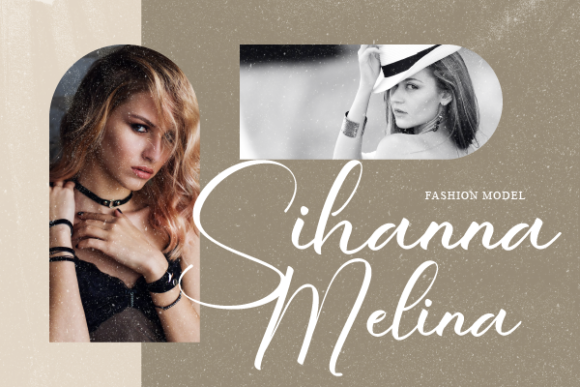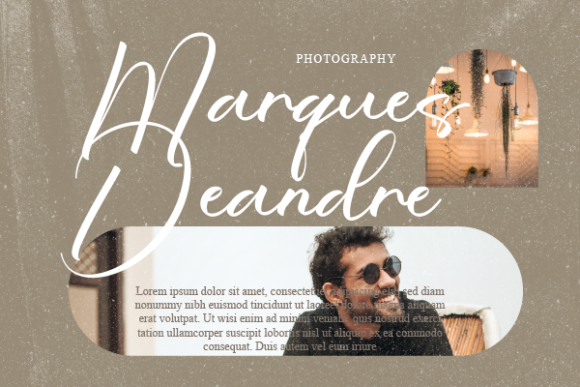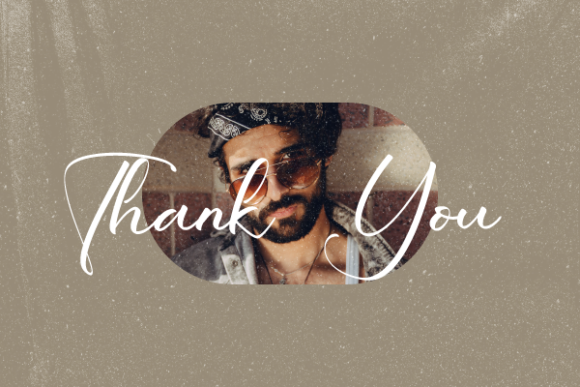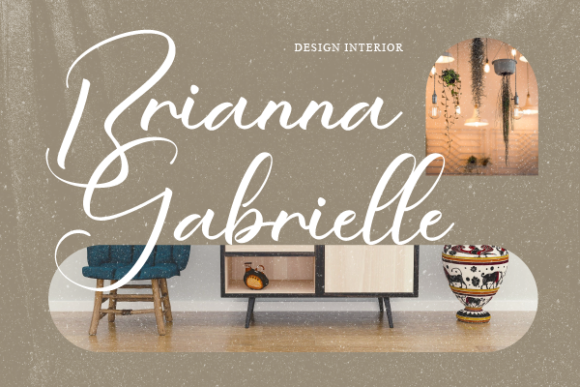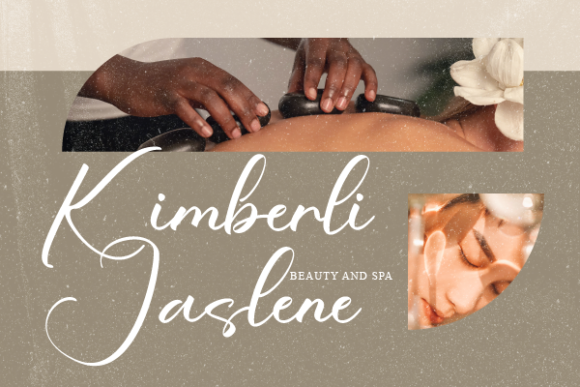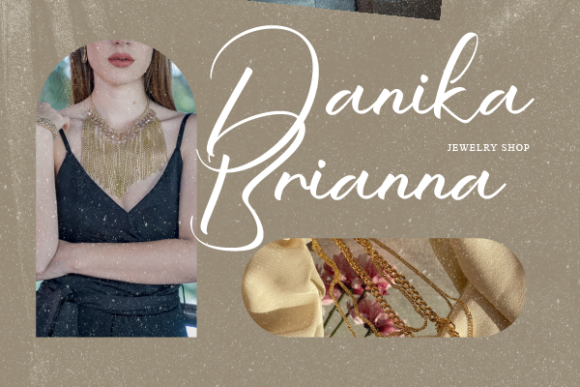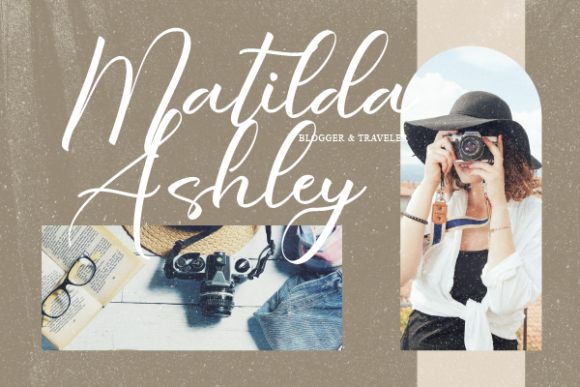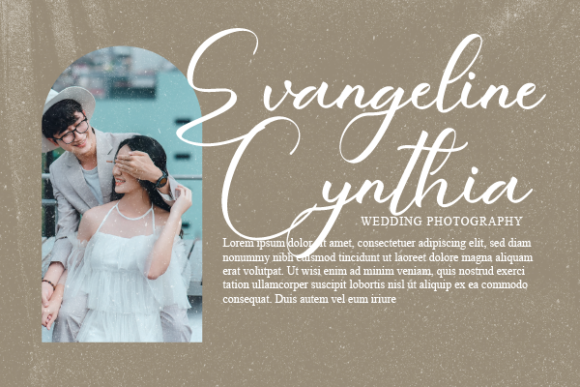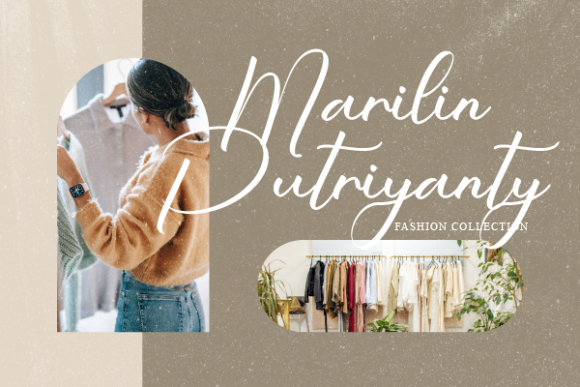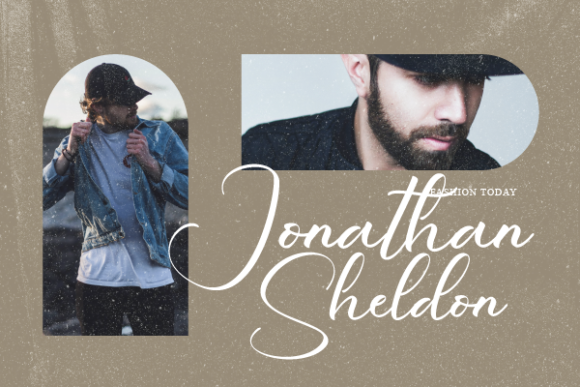
Holly Bomford Font
About Holly Bomford Font
“Holly Bomford” emerges as a font that embodies delicacy and fashion-forward elegance. With its graceful script style, it becomes the ideal choice for a diverse range of branding projects. From logos to t-shirt printing, and from creative products to a myriad of contexts, this font exudes an extraordinary charm that elevates every design it graces.
Visualize “Holly Bomford” as a brush that dances across the canvas with finesse and flair, leaving behind a trail of elegant strokes that form a visual tapestry of sophistication. Its delicate curves and stylish lines elevate your projects, transforming them into visual treasures that radiate with charm and creativity. As you integrate this font into your creations, you’ll embark on a journey where your concepts evolve into captivating visual narratives.
Beyond its visual allure, “Holly Bomford” captures an essence of authenticity and creative expression. Its script nature adds a personal touch, turning your designs into more than just visuals – they become expressions of artistry and refined style.
“Holly Bomford” stands as a versatile companion in your branding journey. Its adaptability ensures seamless harmony with various styles, themes, and intentions. Whether you’re seeking to enhance the impact of your logo, bring a fashionable touch to t-shirt prints, or infuse creative products with a sense of elegance, this font amplifies the resonance of your message.
In a world where design communicates through visual aesthetics and emotional resonance, “Holly Bomford” becomes your tool for crafting designs that evoke feelings and leave a lasting impression. Let its delicate script be the artistic flourish that enhances your creations, infusing them with a touch of fashion-forward elegance. Embrace the charm of “Holly Bomford” and watch as it transforms your projects into captivating showcases of artistic excellence, resonating deeply with all who engage with them.